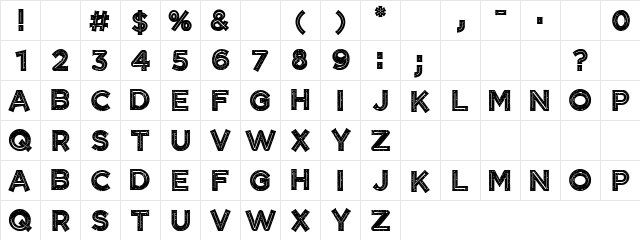
CF Tangerine Grunge Regular
| Foundry | Cloutierfontes |
| Designer | Steve Cloutier |
Design Context for CF Tangerine Grunge Typeface
CF Tangerine Grunge embraces imperfection — its rough, textured character adds raw authenticity to designs that want to feel lived-in and unconventional.
A strong fit for alternative music projects, graffiti-adjacent design, and anything that deliberately resists polish.
Pro Tip: Use CF Tangerine Grunge at larger sizes where the texture and irregularity of each letterform can be clearly seen — it loses its character at small sizes.